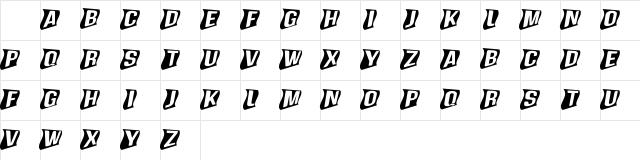
Complete Genghis Khan framed Md Perspective Bold glyph index. Displaying only characters natively supported by Genghis Khan framed Md Perspective Bold font.
Genghis Khan framed Md Perspective is a composed and adaptable typeface that performs quietly and consistently across a wide range of design contexts. Its bold stroke weight gives it real presence on the page.